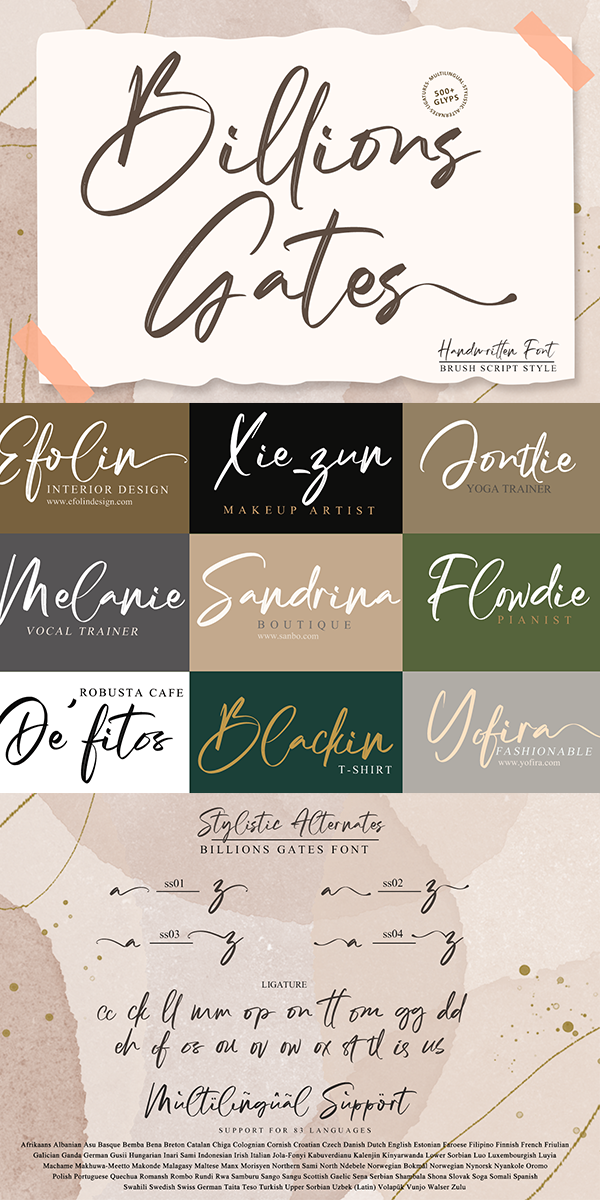
Billions Gates Font
Designed by Gie Studio
About Billions Gates
Billions Gates is a dazzling script font, neatly crafted and highly detailed. Whatever the topic, Billions Gates will be a wonderful asset to your font library and perfect for many projects such as logos & branding, stationery, logo designs, social media posts, advertisements, product packaging, product designs, label, watermark, Product branding and others.
-Multilingual Support for 83 Country
-Stylistic alternates Collection
-Ligature Collection
-Numeral and Punctuation